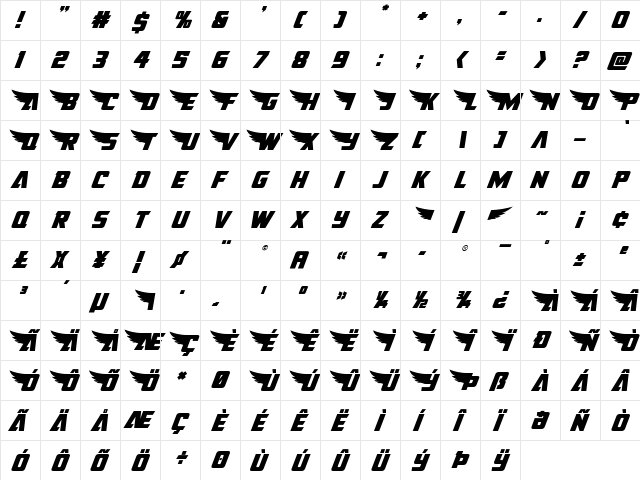
American Kestrel Regular Font Preview
American Kestrel Regular
Design Context for American Kestrel Typeface
American Kestrel is a composed and adaptable typeface that performs quietly and consistently across a wide range of design contexts.